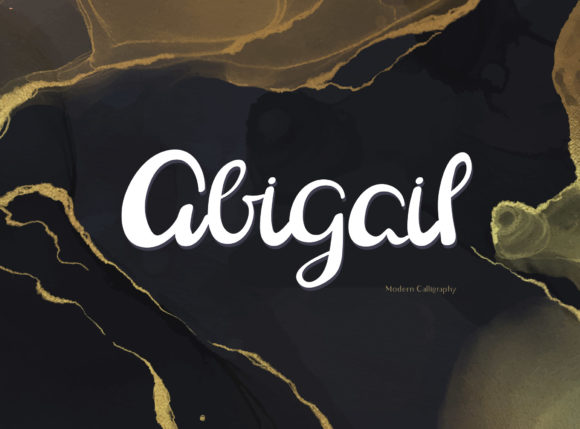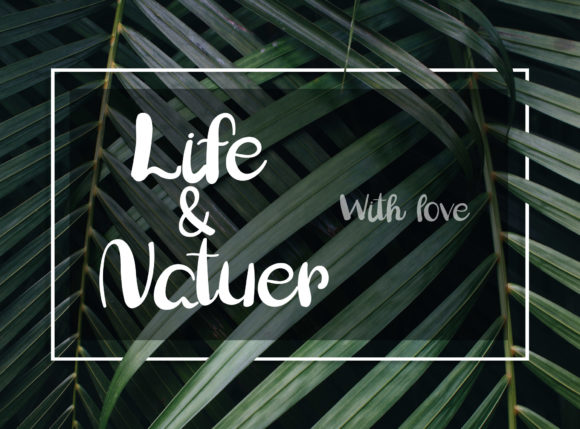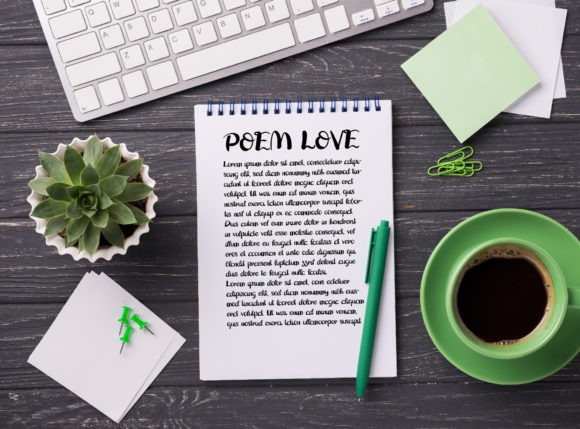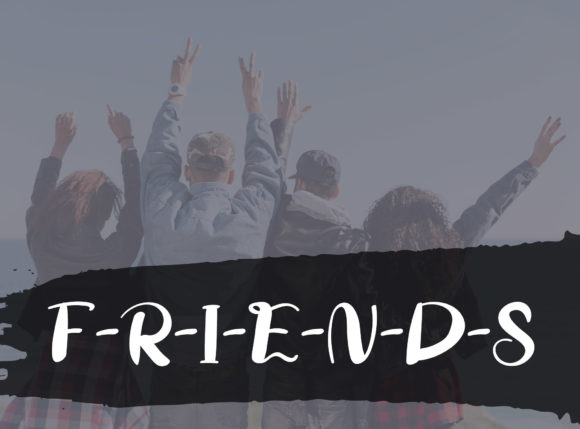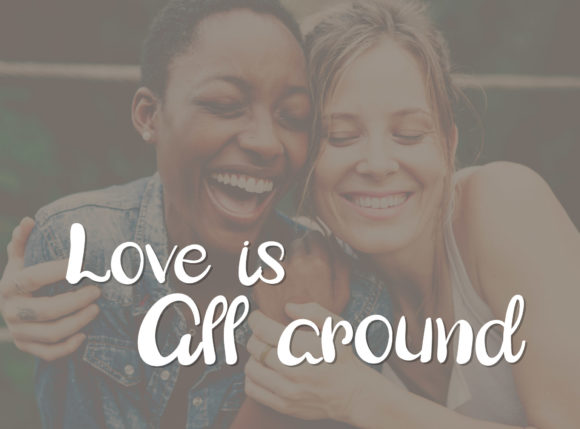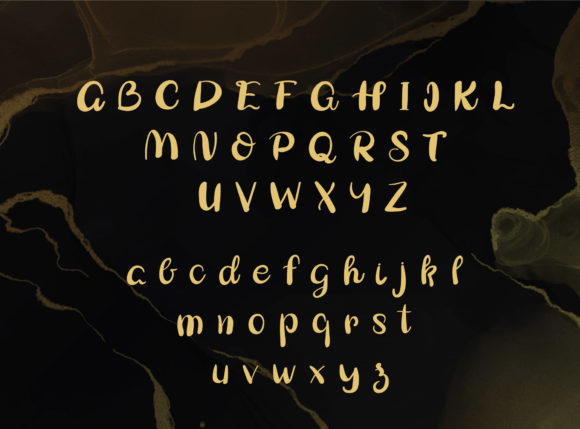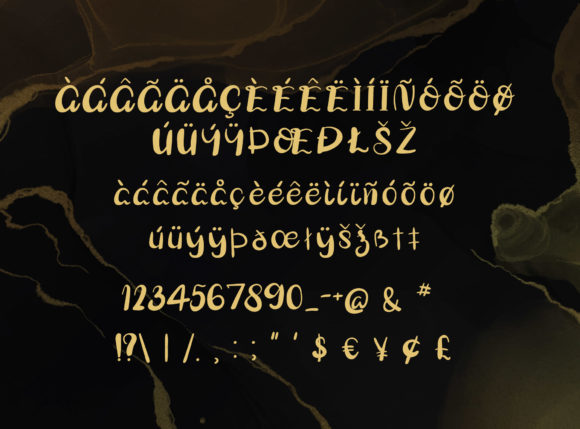
Abigail Font
About Abigail Font
Abigail is a sweet and round lettered handwritten font. Its natural and unique style makes it incredibly fitting to a large pool of designs. The only limit is your imagination!